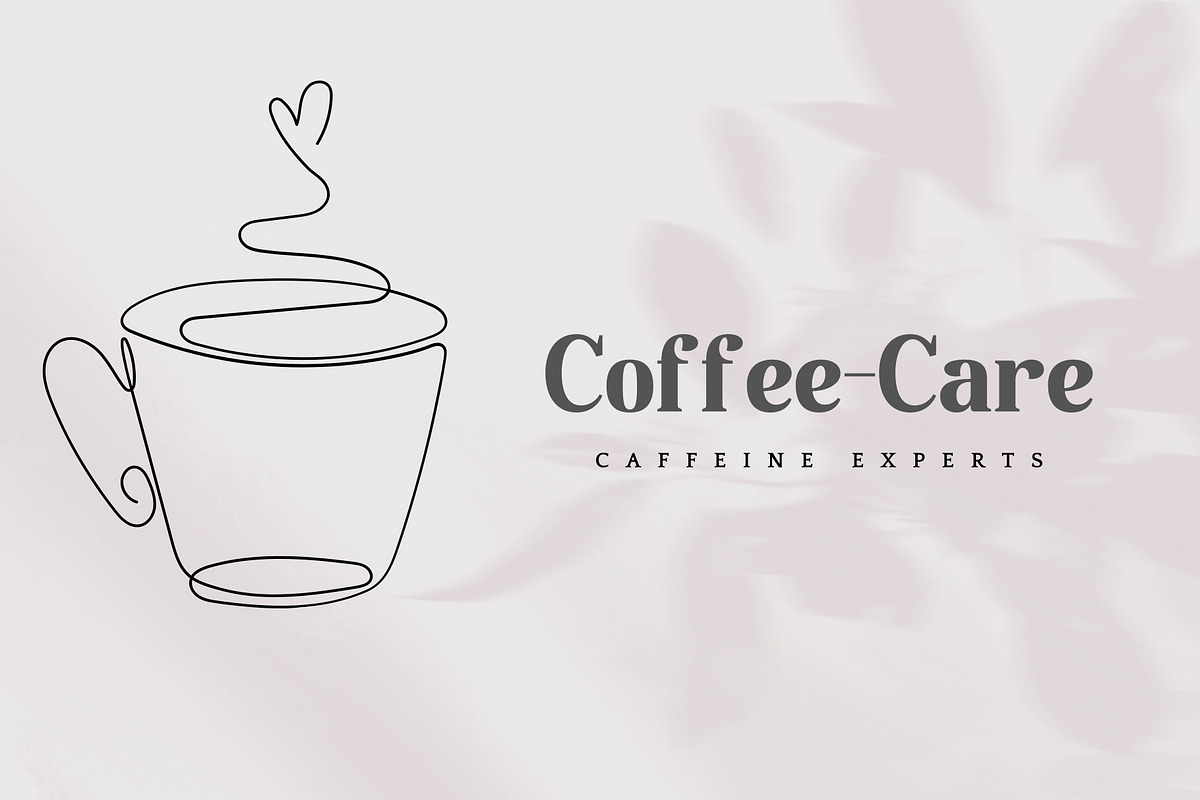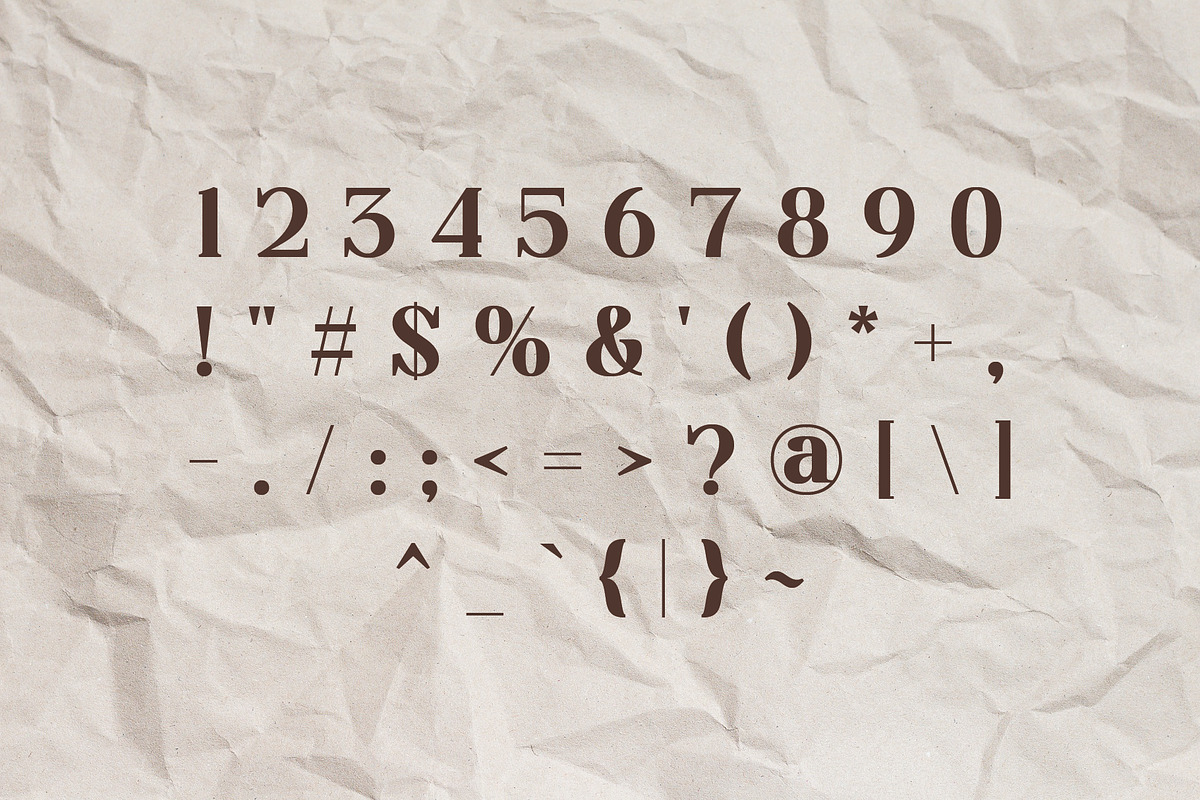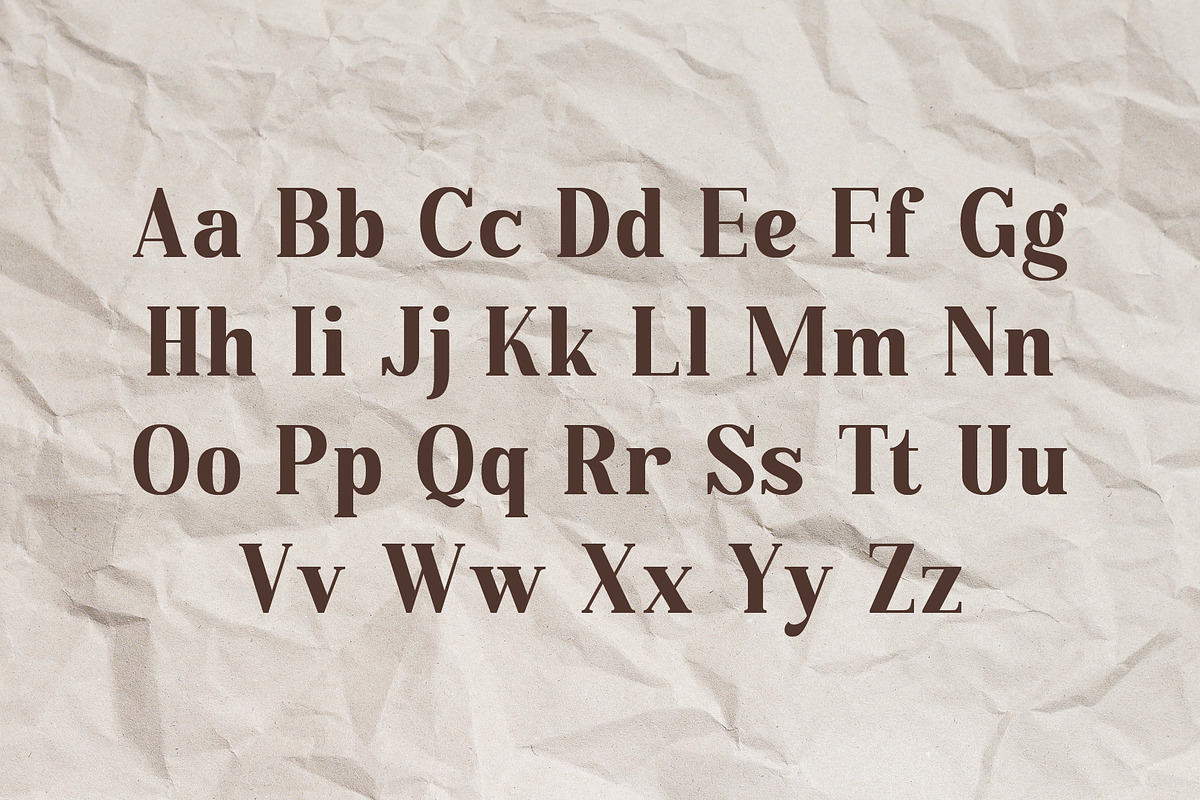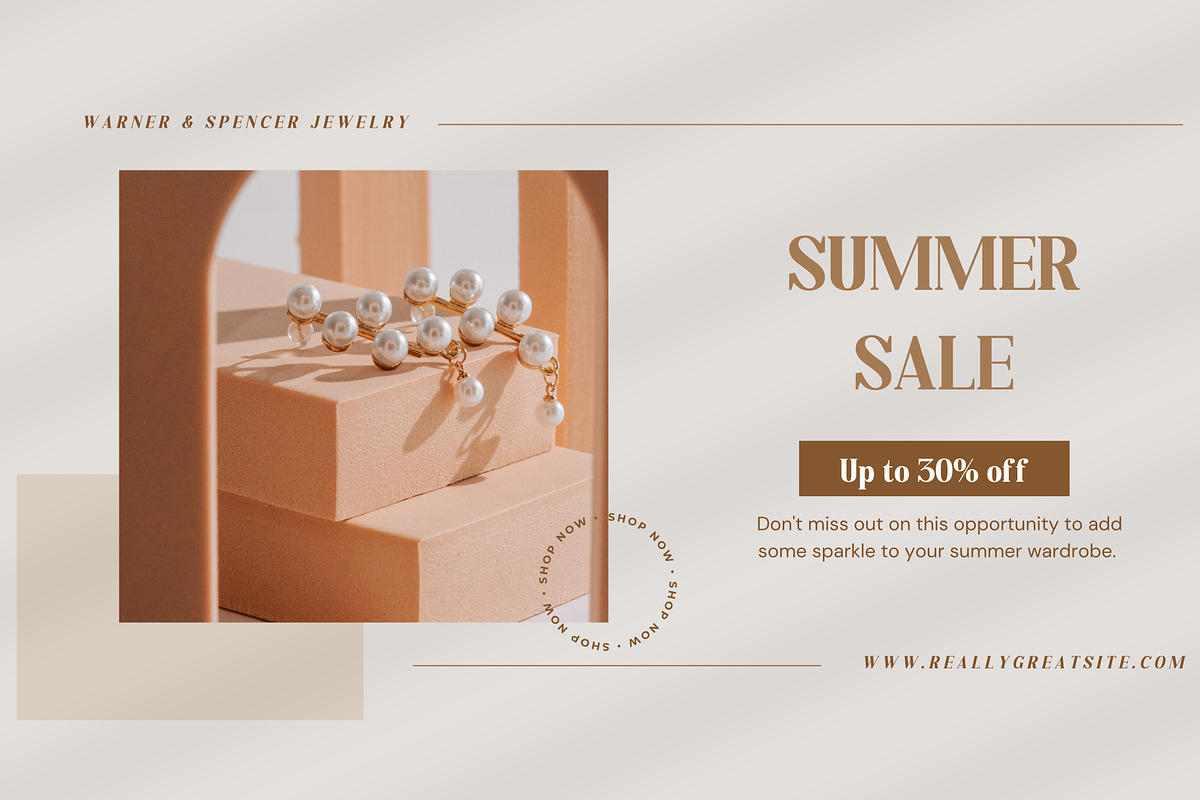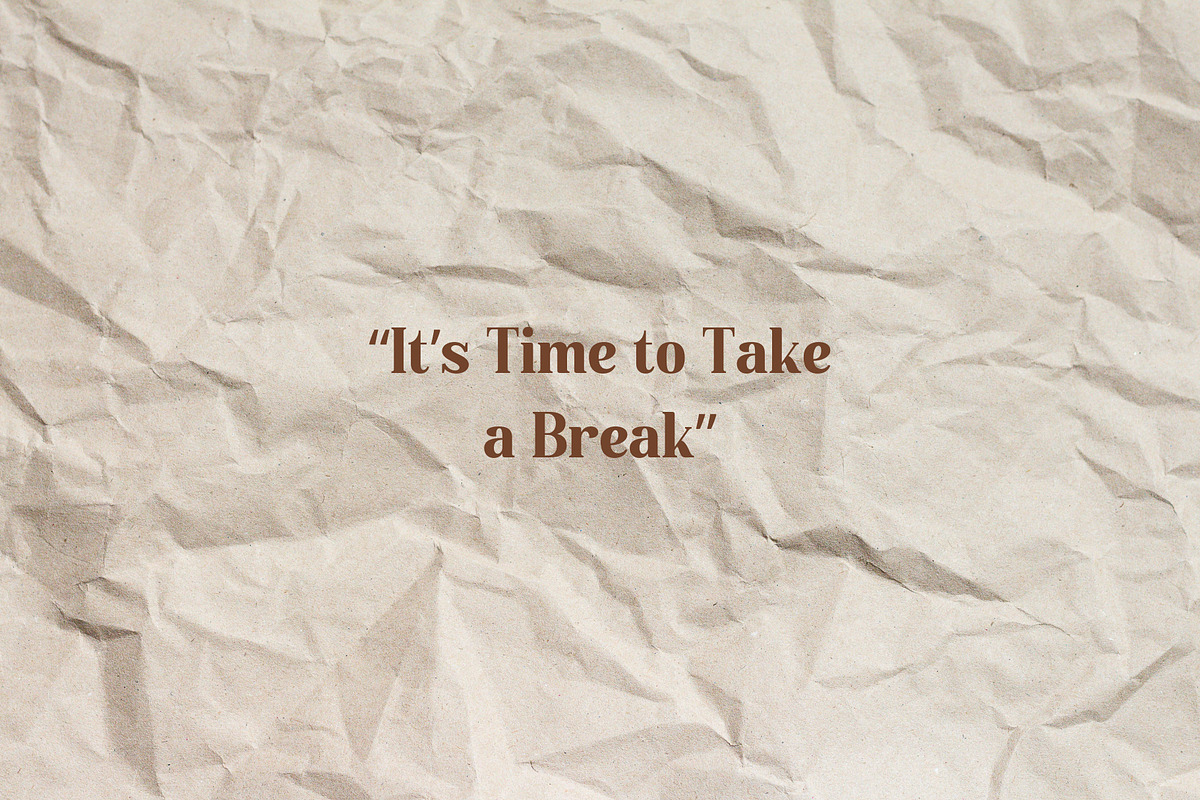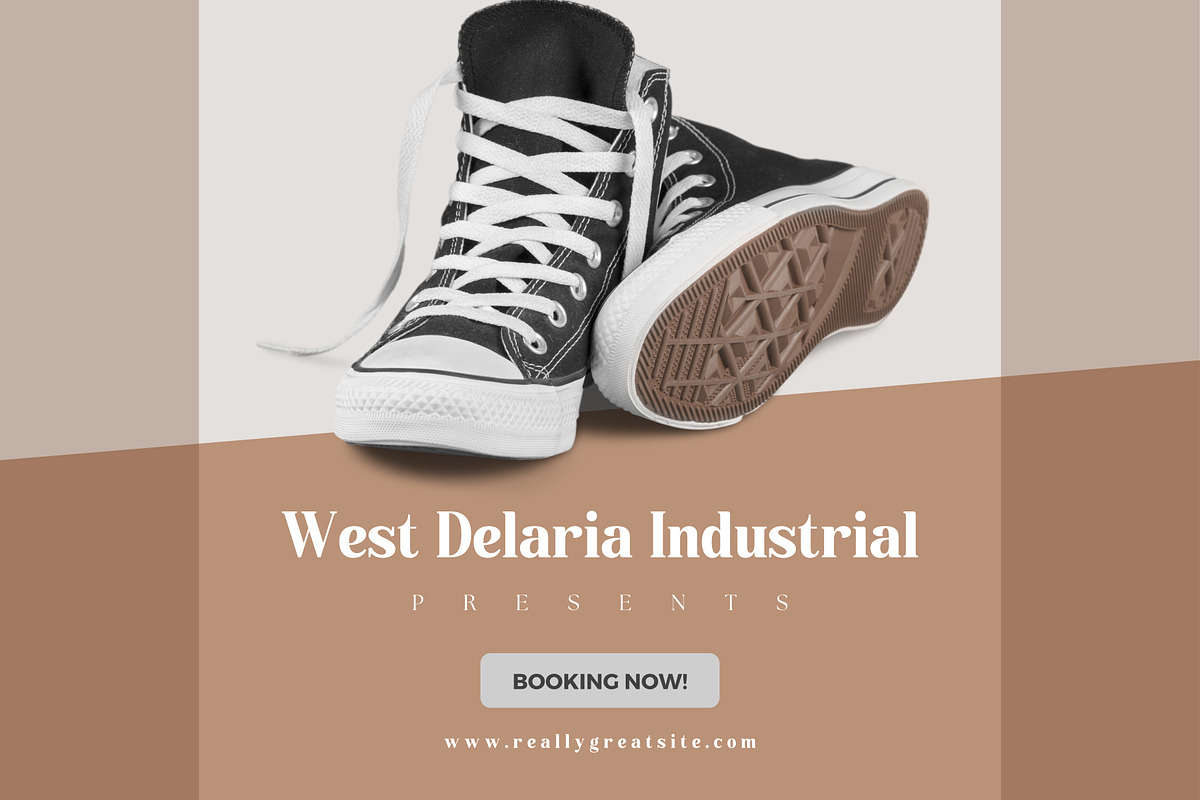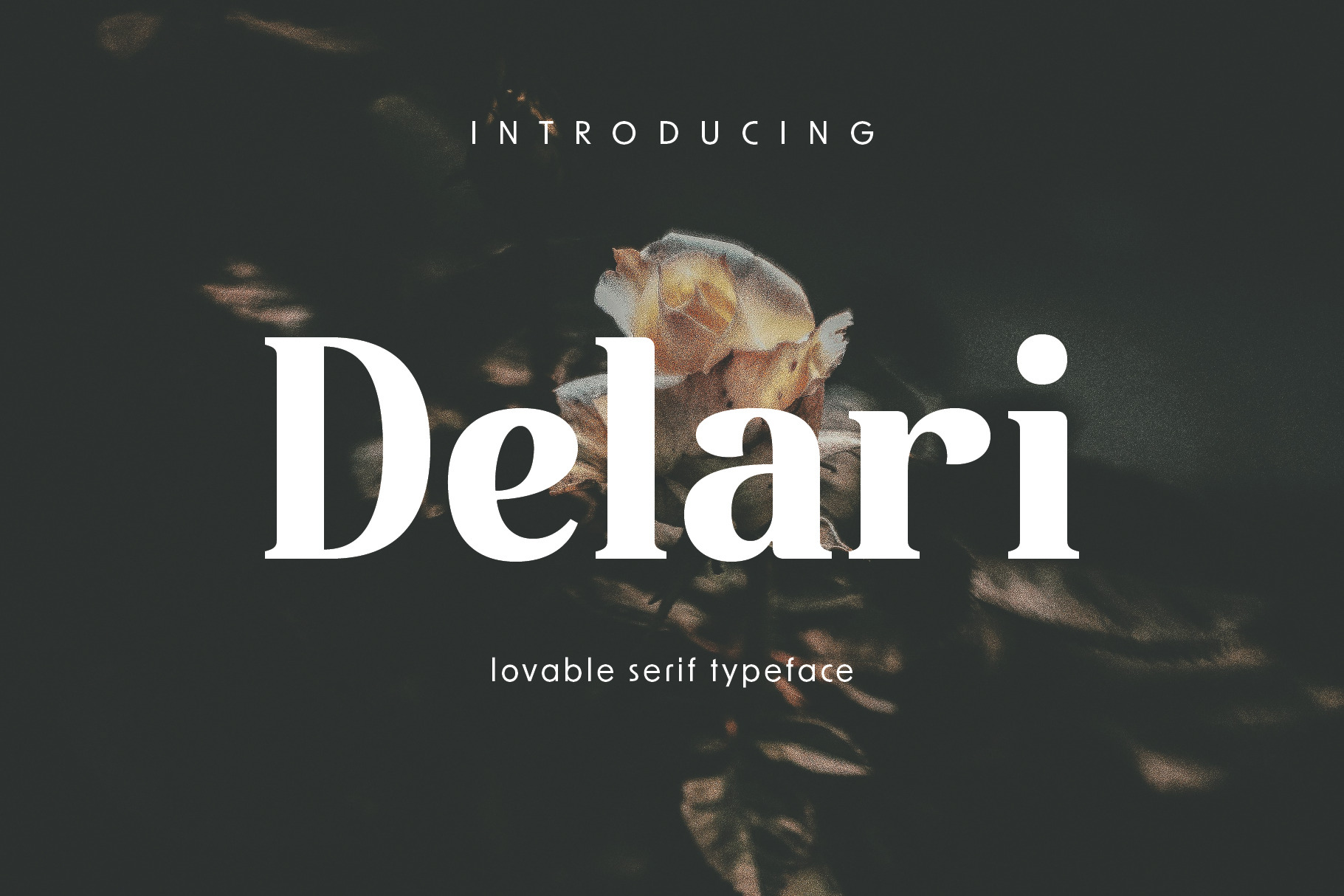
Delari - Lovable Serif Font
Delari is a pretty loveable serif typeface that attractive one with clean line and has the right thickness makes it easy to read. This font is modern and loveable, works well for logos, magazines, and other interesting products. Perfect for your next design! And this font includes with matching italic too. Such a fun typeface to play with!